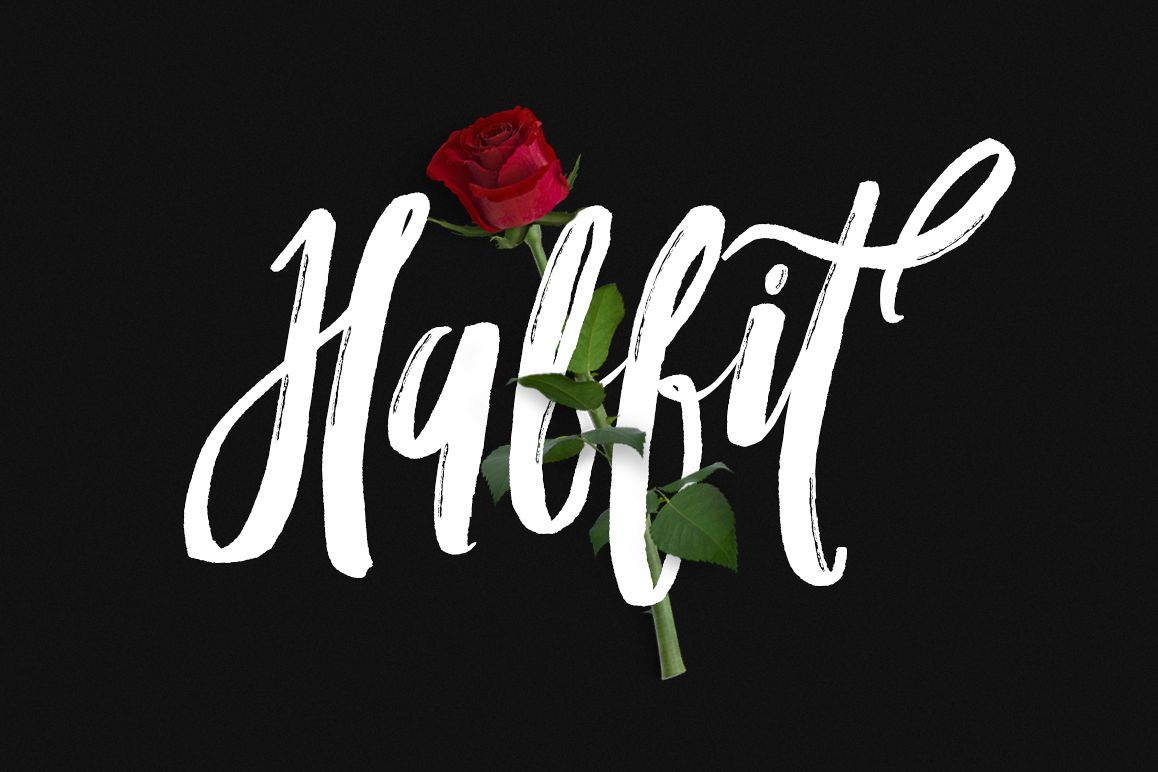
Give your designs an authentic brush handcrafted feel. "Habbit" is perfectly suited to stationery, logos and much more. Included Stylistic Alternates & Ligatures